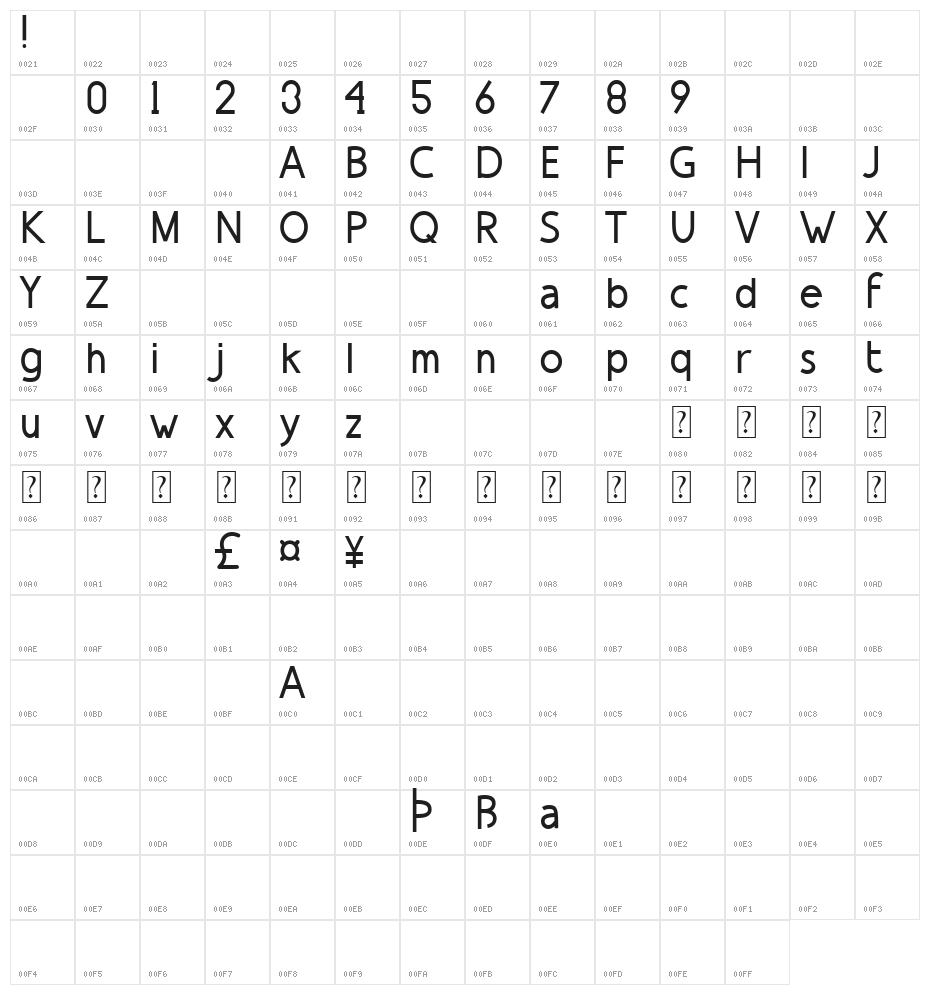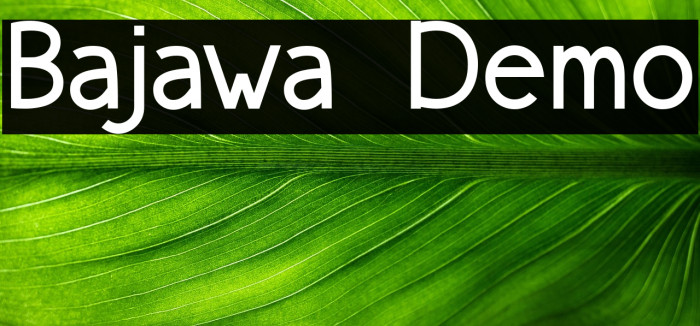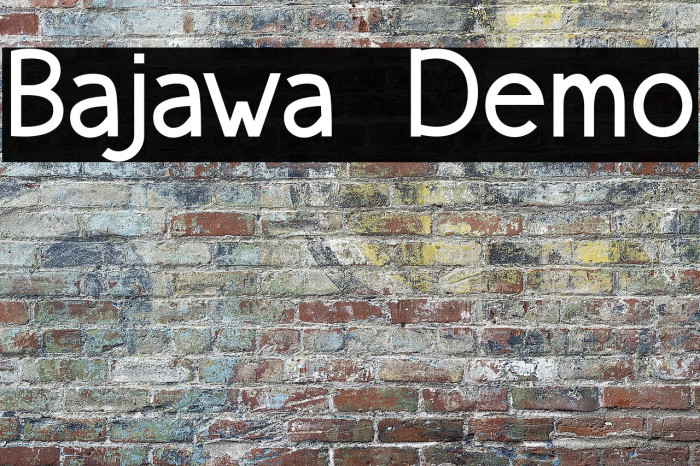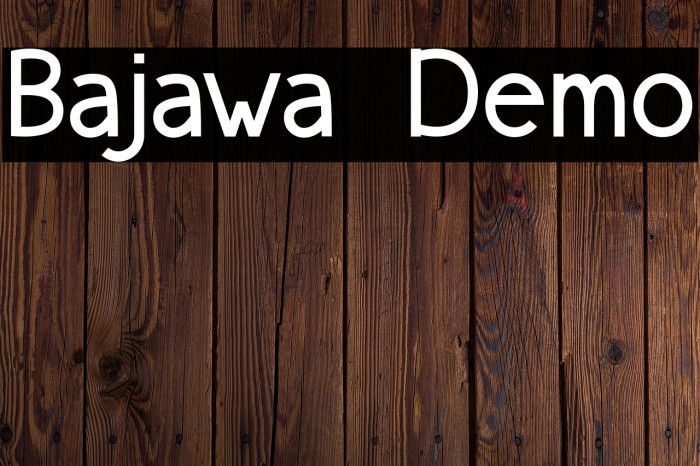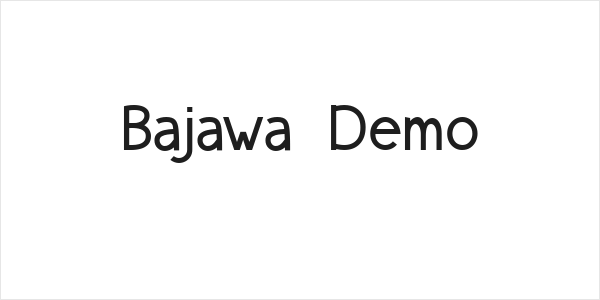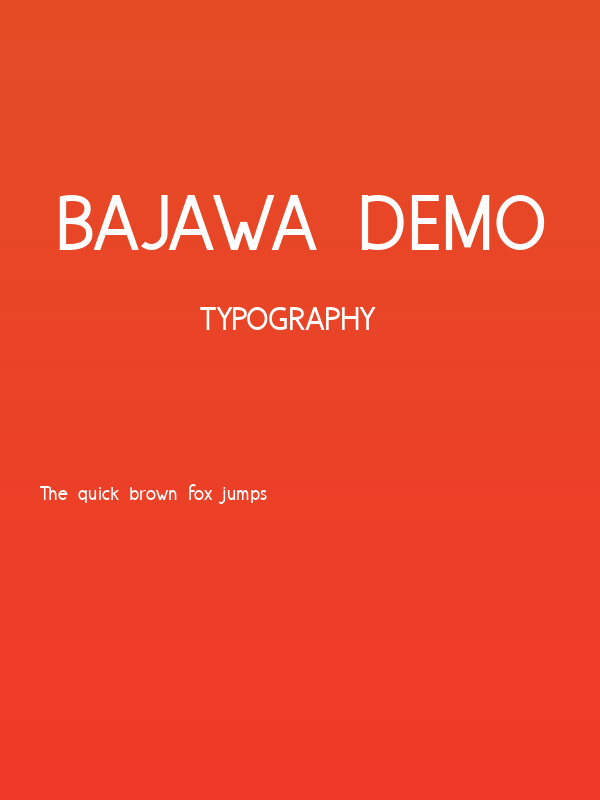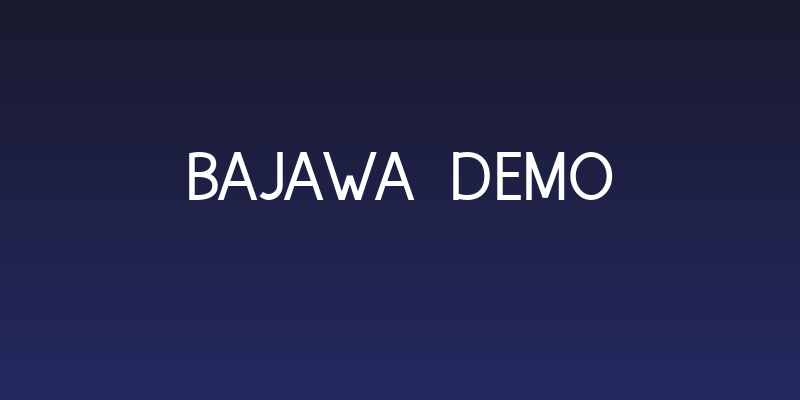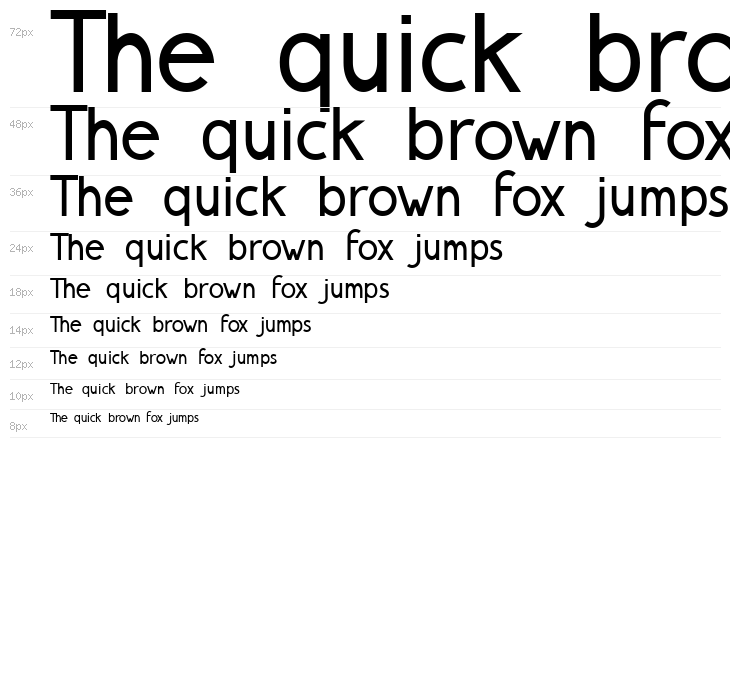
Bajawa Demo Font
Bajawa Demo Description
This font exhibits a clean and modern sans-serif style, characterized by its geometric shapes and uniform stroke widths. The uppercase letters are bold and assertive, while the lowercase letters maintain a consistent and harmonious appearance. The numerals are clear and easy to read, making them suitable for various applications. The overall design is sleek and contemporary, with a focus on readability and simplicity. The font's structure is well-balanced, with even spacing between characters, ensuring a smooth visual flow. Its versatility makes it ideal for both digital and print media, offering a professional and polished look.